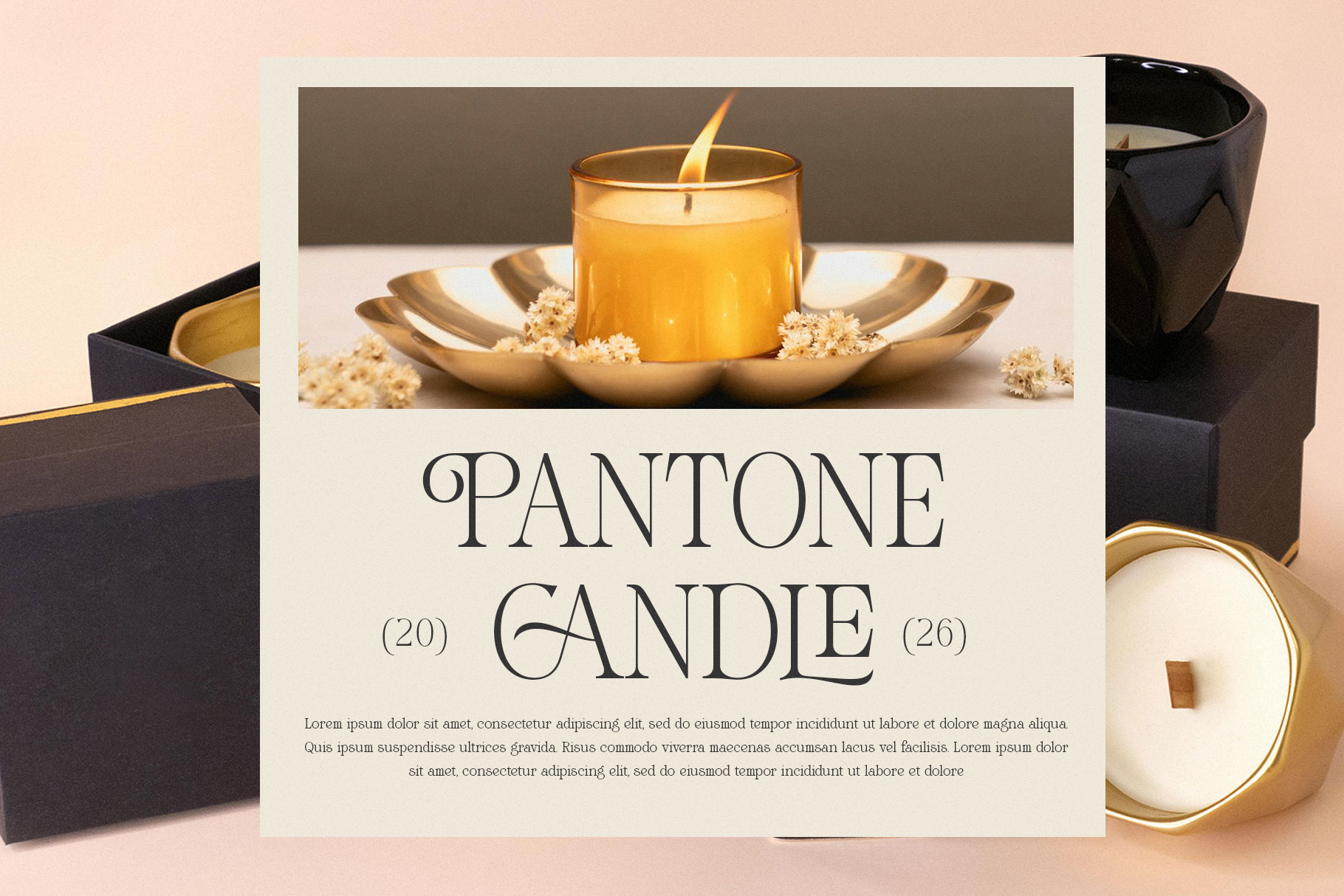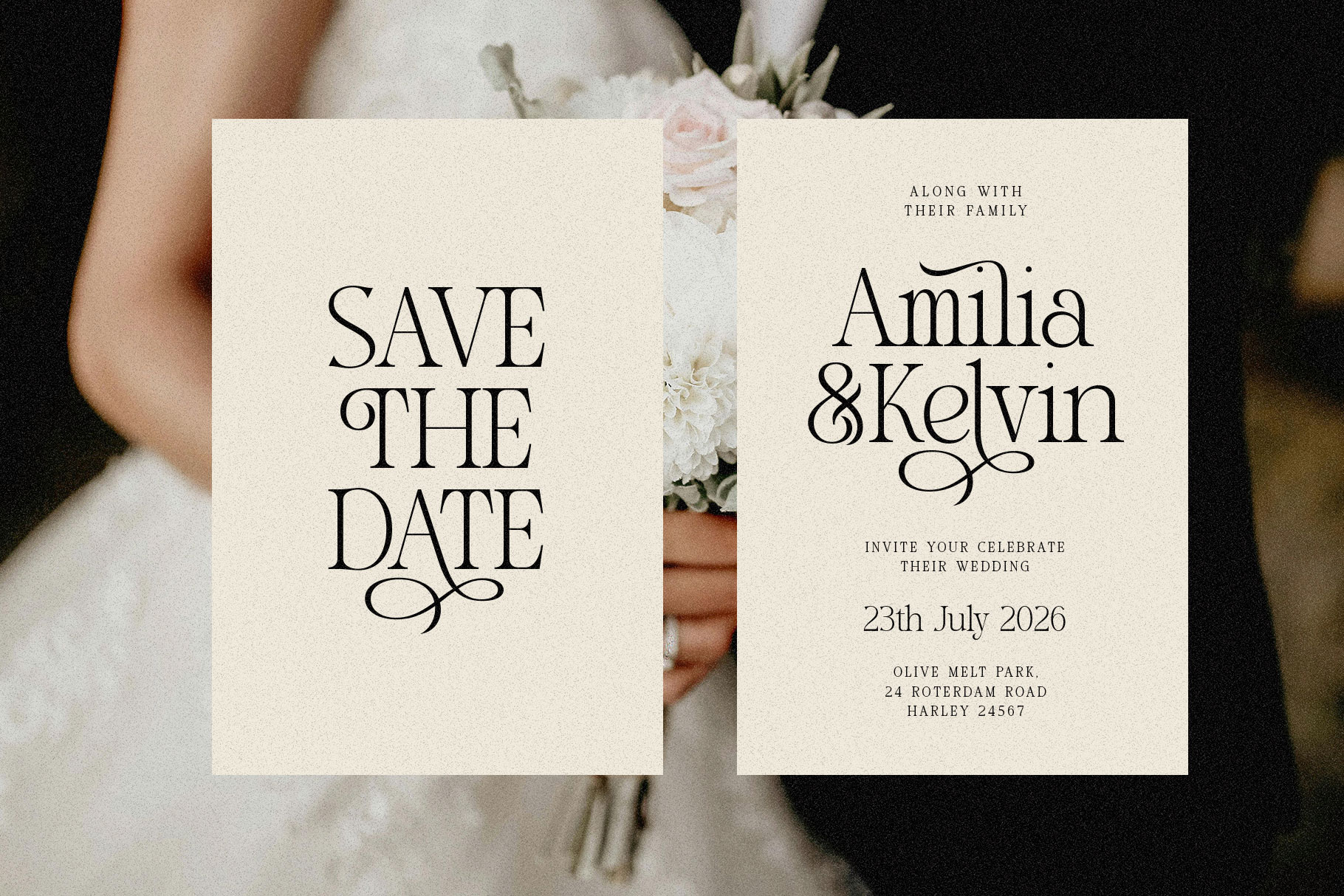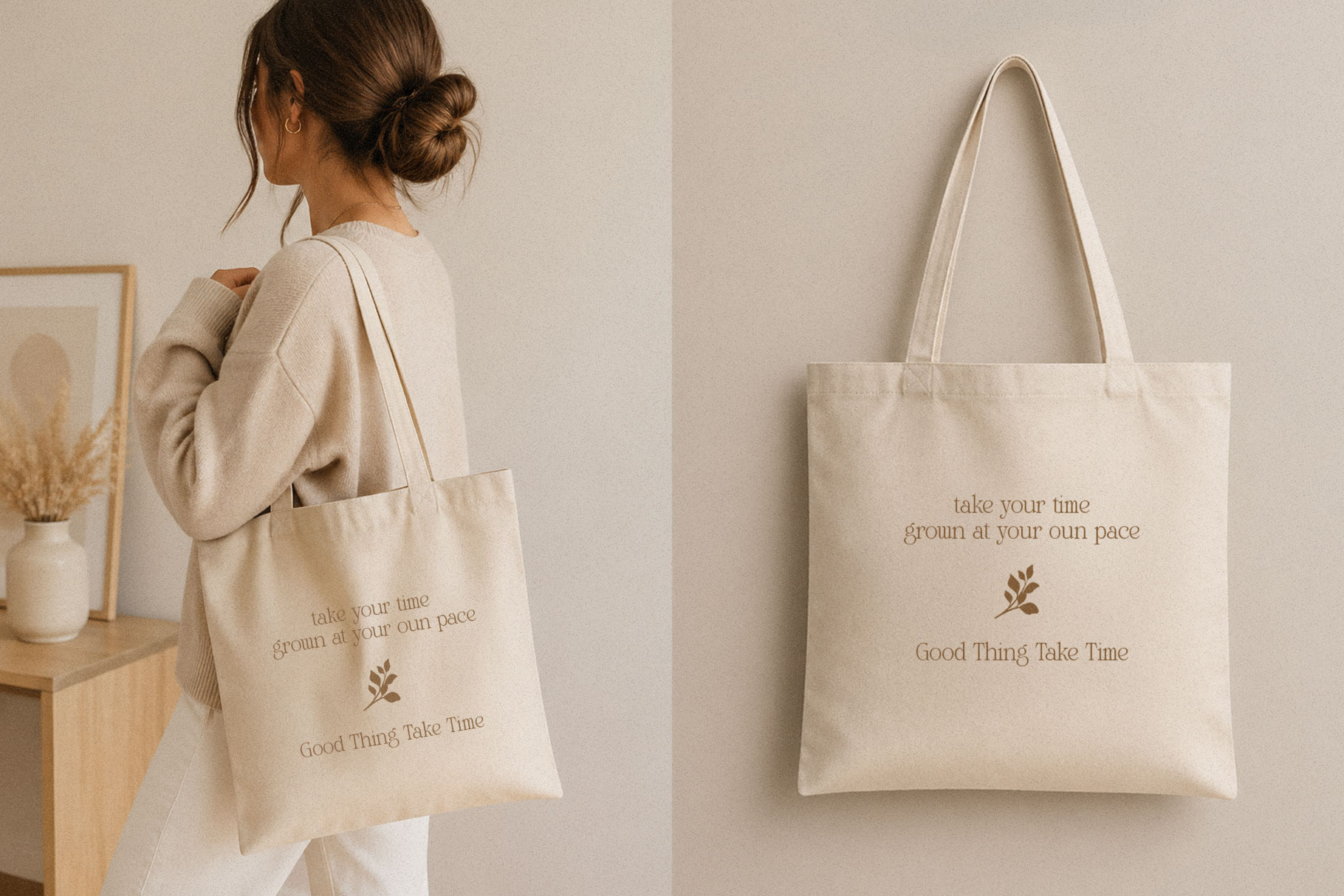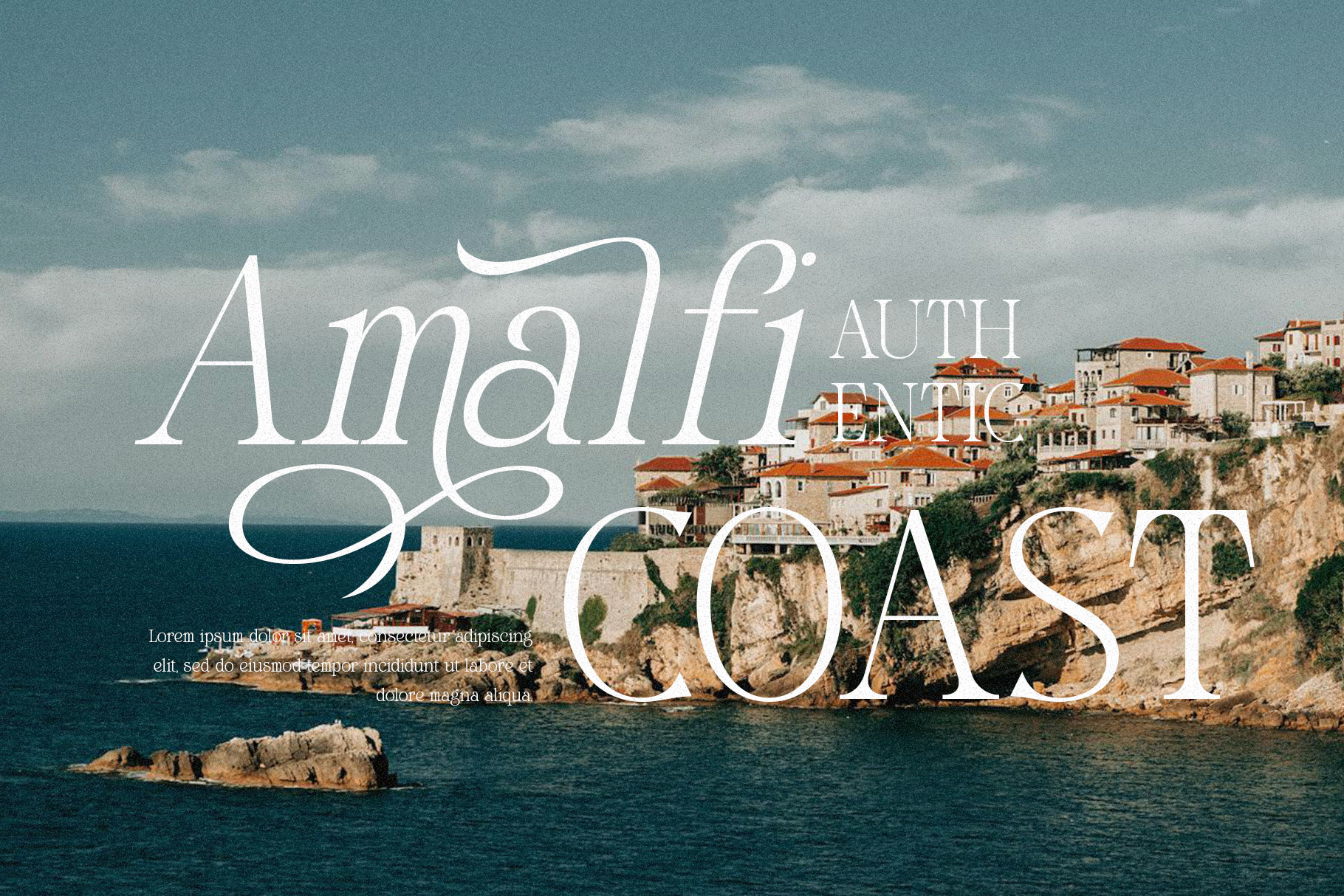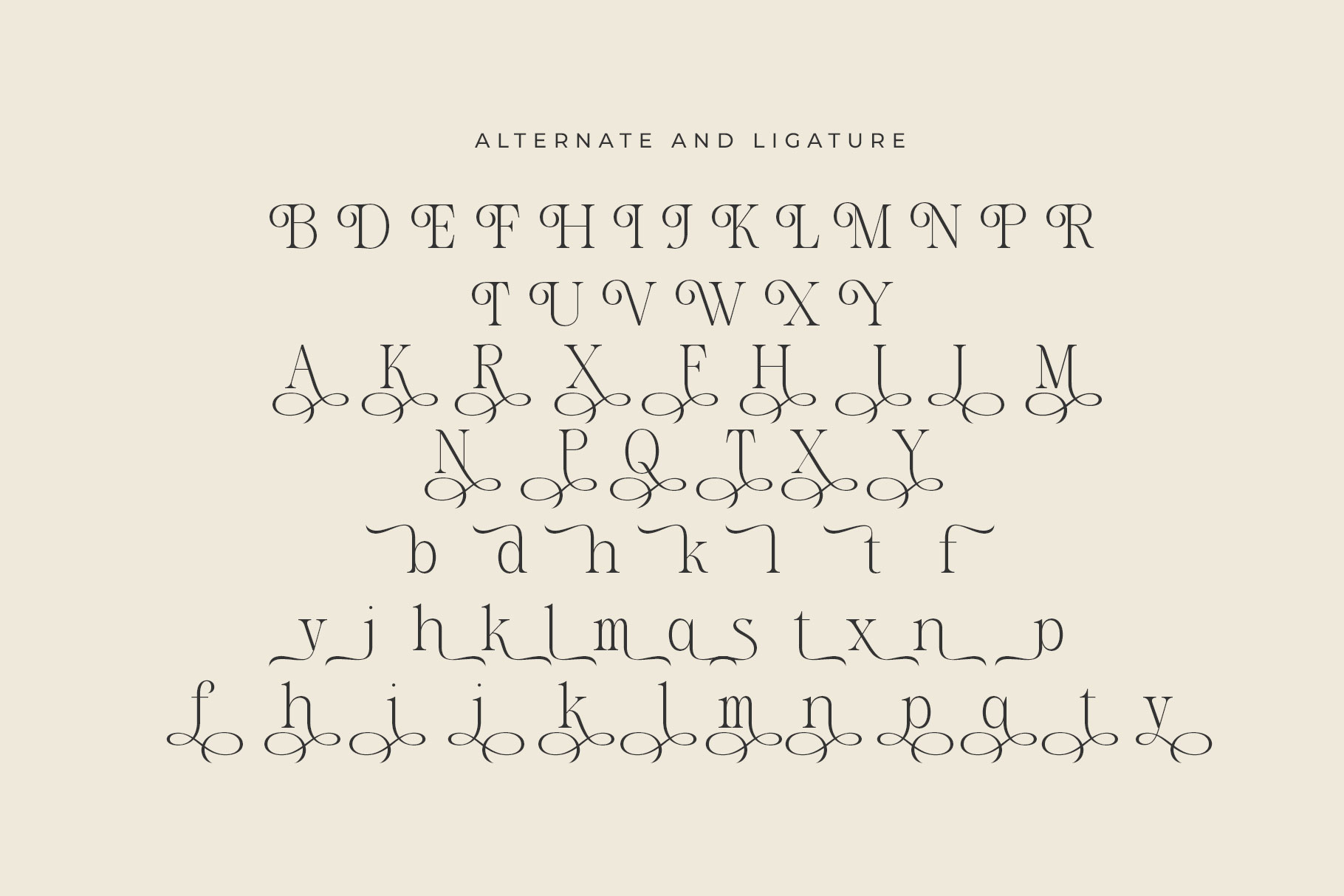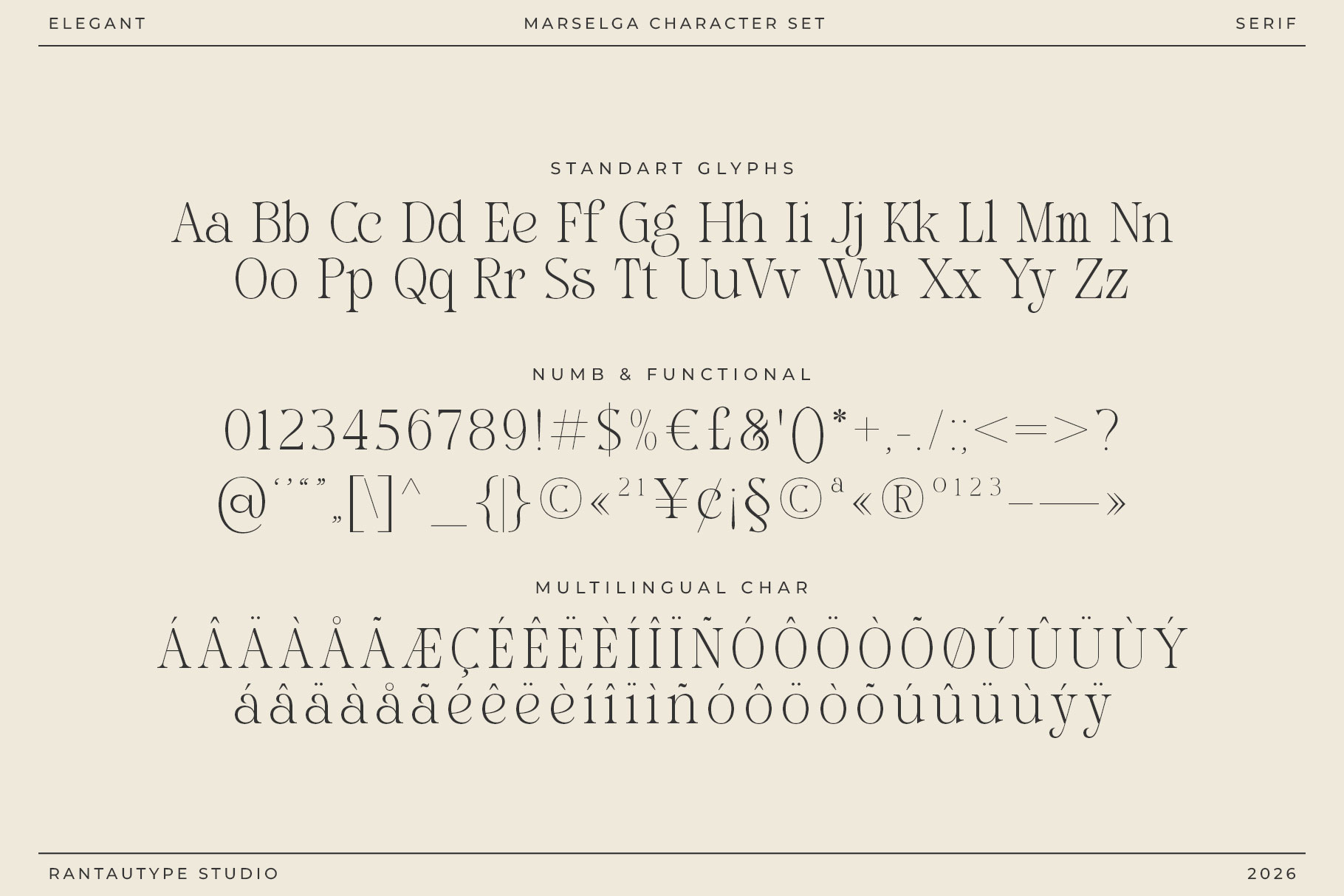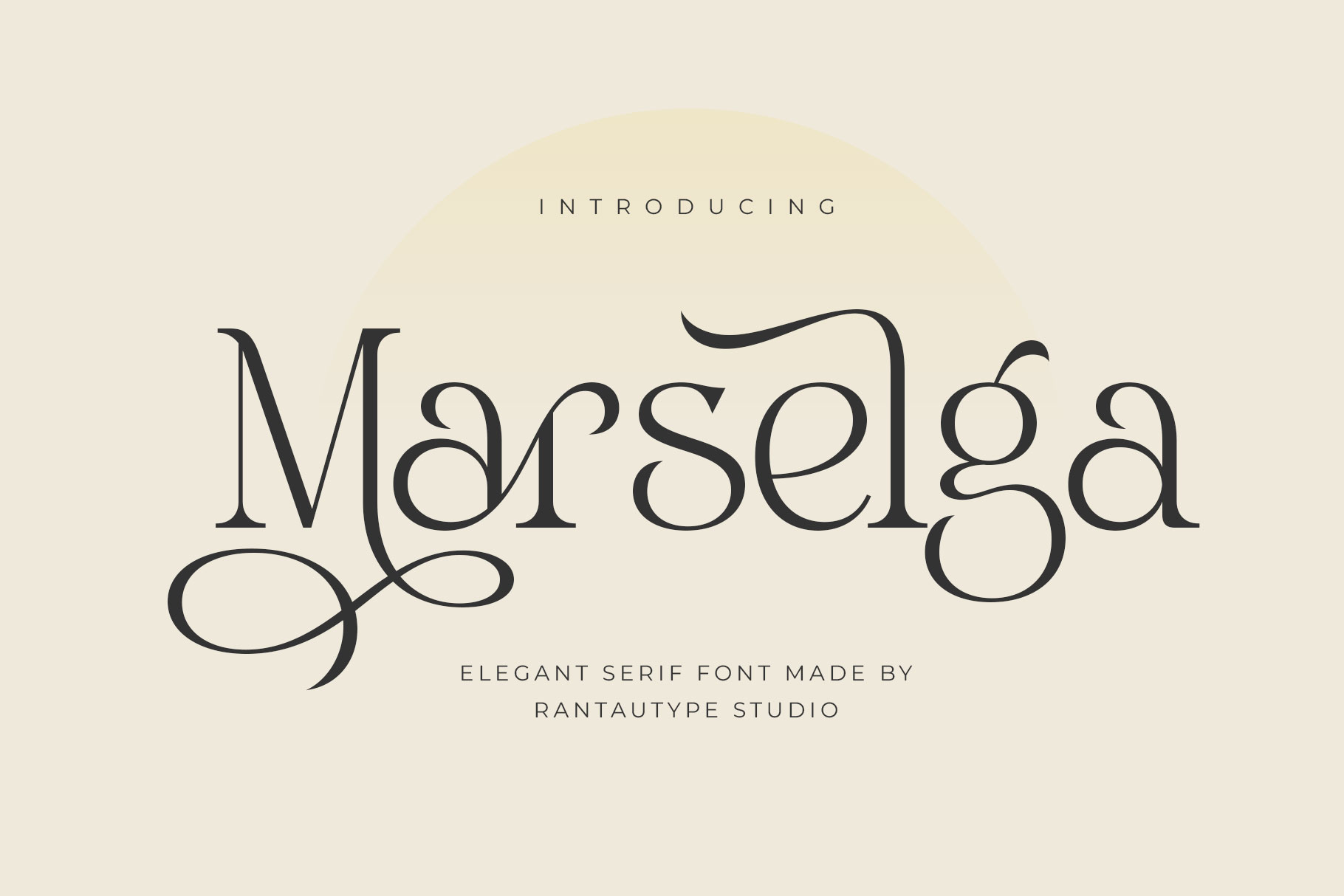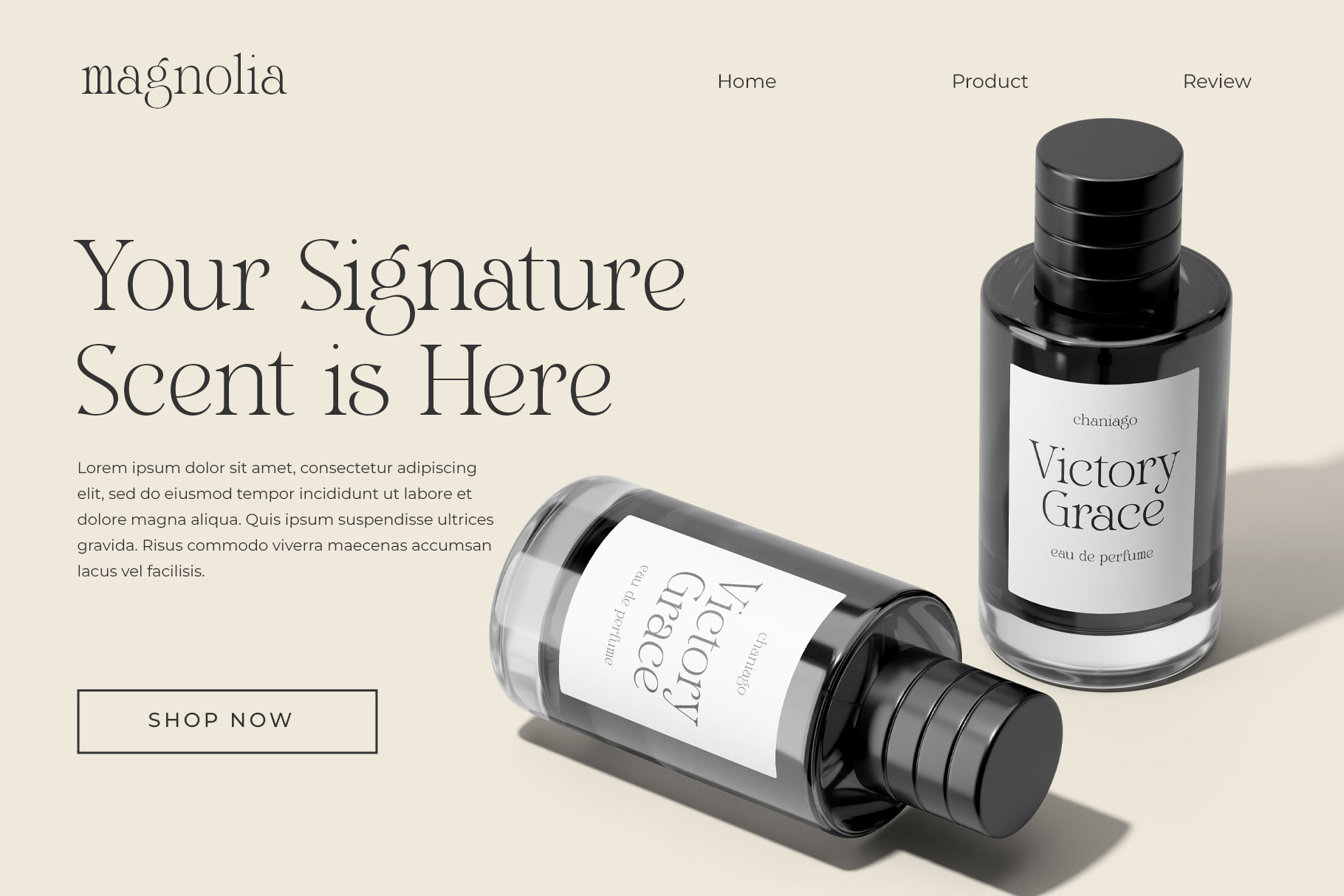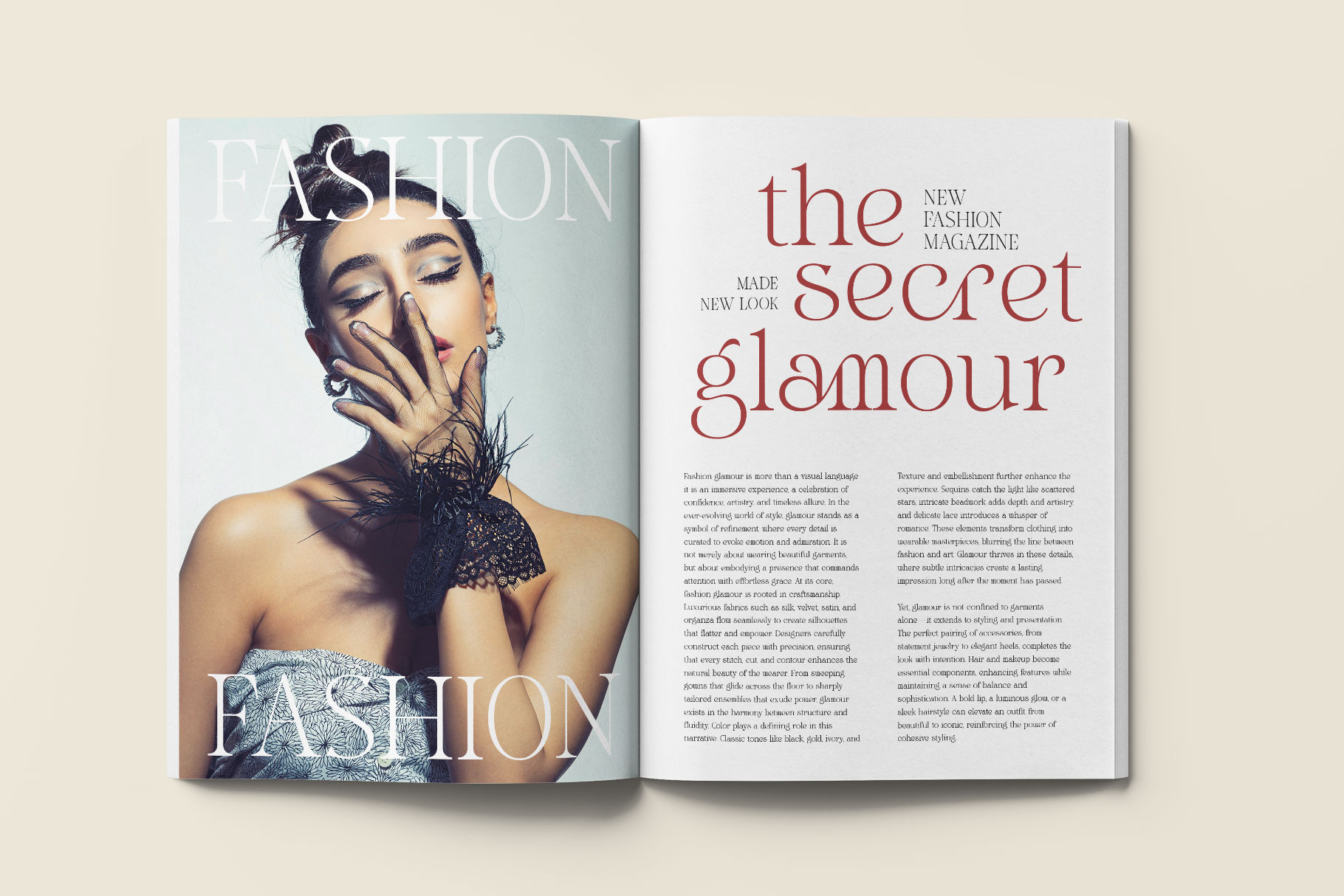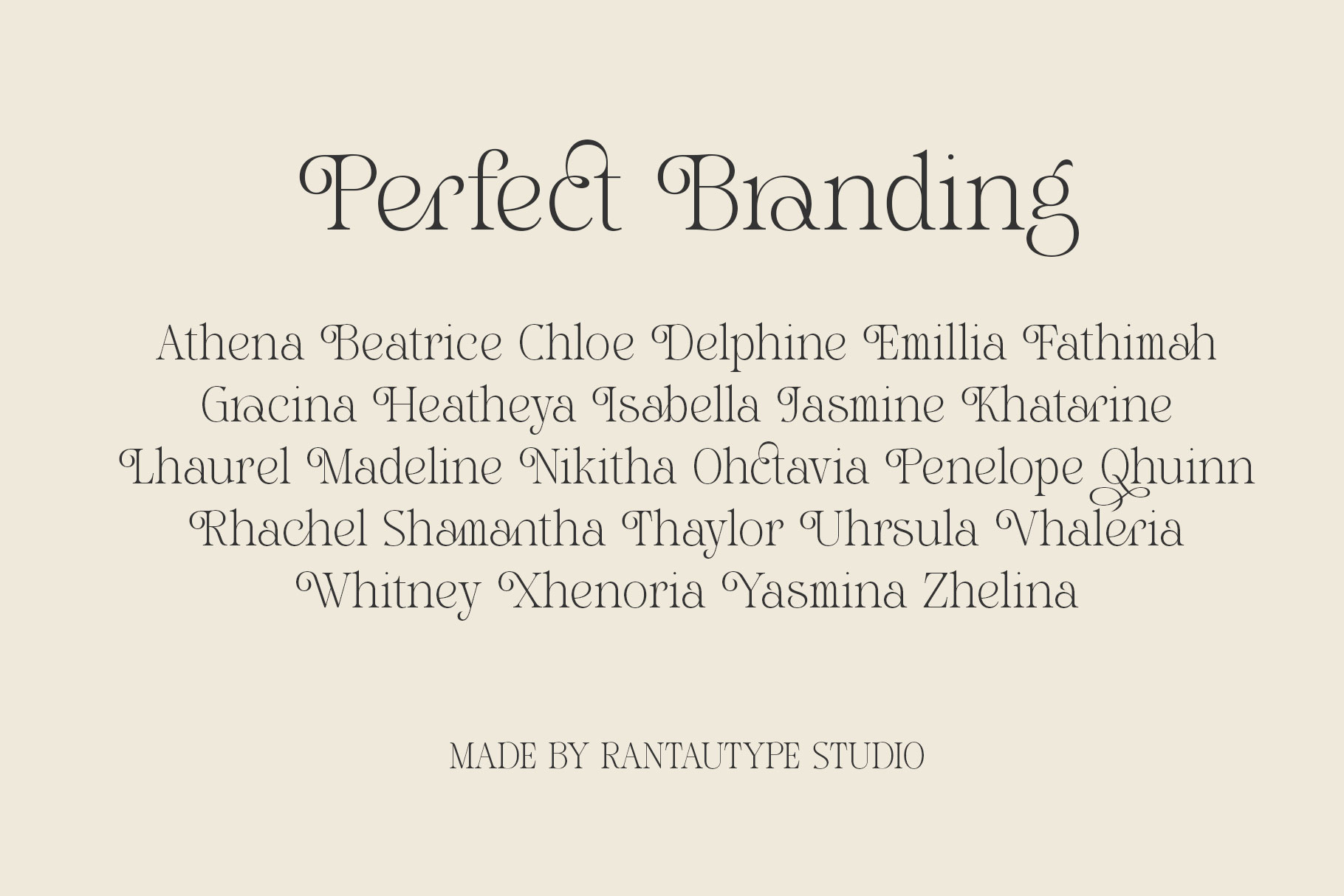
Marselga Regular
Marselga Italic
Marselga is elegant serif font embrace grace and classy. Marselga is a perfectly choice for any creative endeavor, creating, modern, lifestyle design such as logotype, title, cover, branding, invitations, wedding designs, display and magazine, social media posts, advertisements, printed quotes, product packaging, corporate brand, product designs, labels, photography, watermarks, special events and any other project with elegant touch.
Marselga Elegant Serif Font